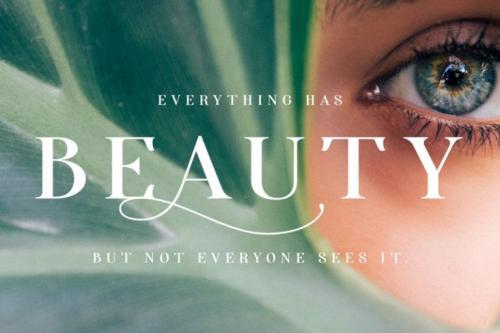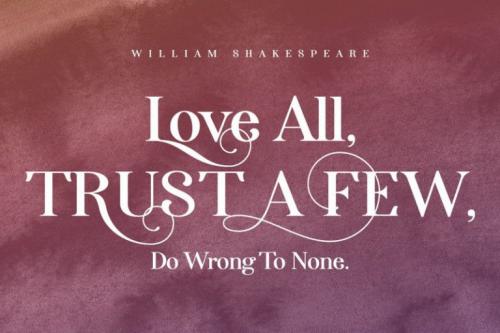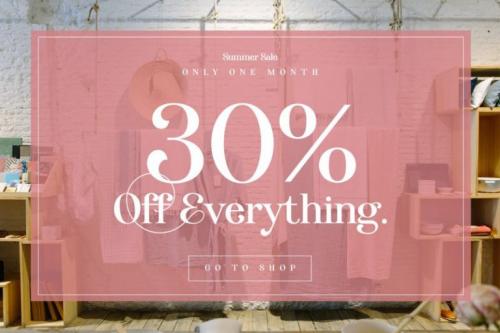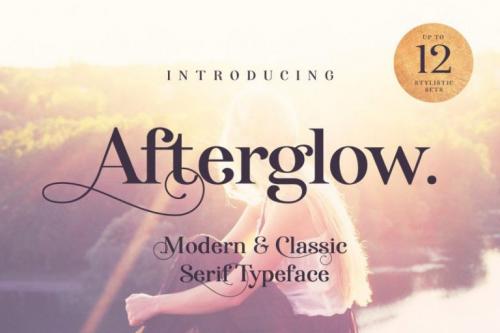
Afterglow Serif Font is Elegant and so stylish serif typeface full of contrast lines, a lot of Stylistic Alternates with thin swashes. Some letters has up to 12 of them.
Use only capitals for headers or quotes, it looks strong and refined, or use Caps with lowercase for block texts, or subheaders. Design your art- or beauty blogs, t-shirts or websites, posters, magazines or cards, and logo’s of course. You will return to this font again and again.